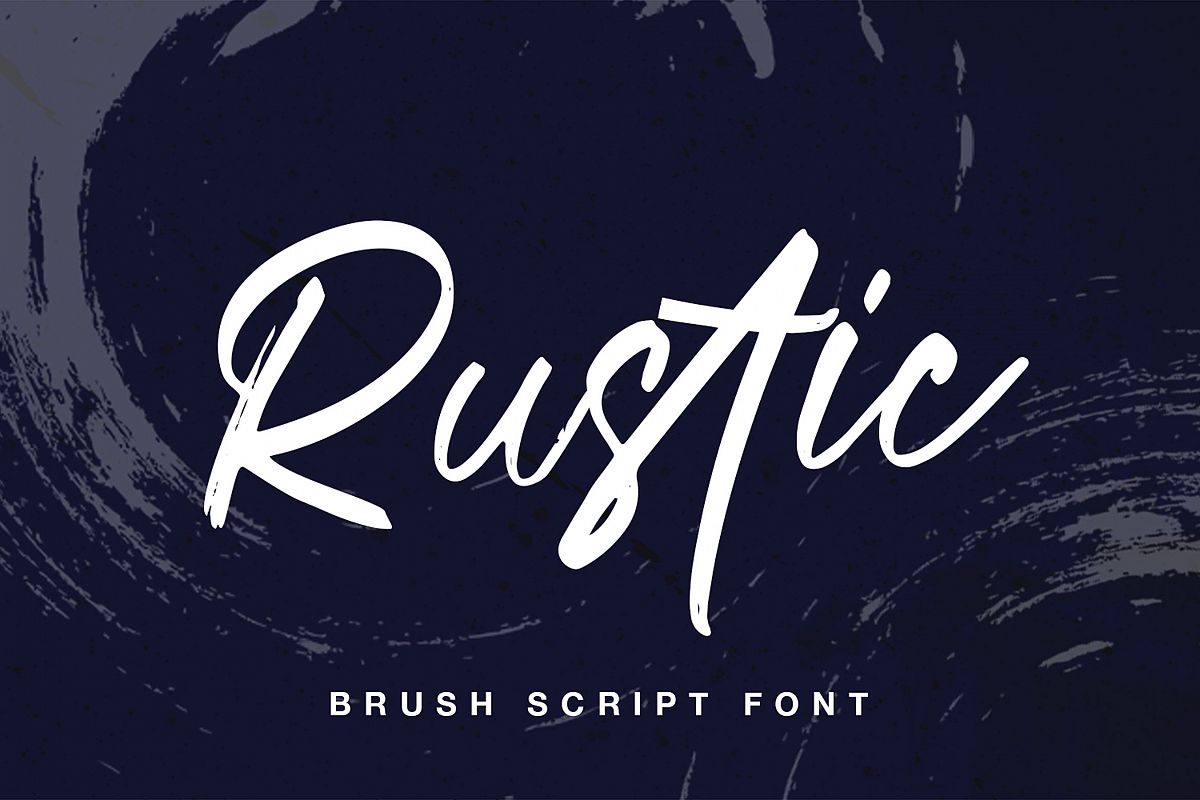
Rustic Brush
Rustic
Rustic Brush is a modern signature, It is perfect for blogging, social media, branding, product packaging, wedding invitations, branding, headlines, signage, labels, signature, book covers, posters, quotes and more.to use a beautiful alternative, you need a program that supports OpenType features such as Adobe Illustrator CS, Adobe Photoshop CC, Adobe Indesign and Corel Draw.Features
• Basic Latin A-Z and a-z, Alternates a-z, Numbers,
• Ligatures Multilanguage Support